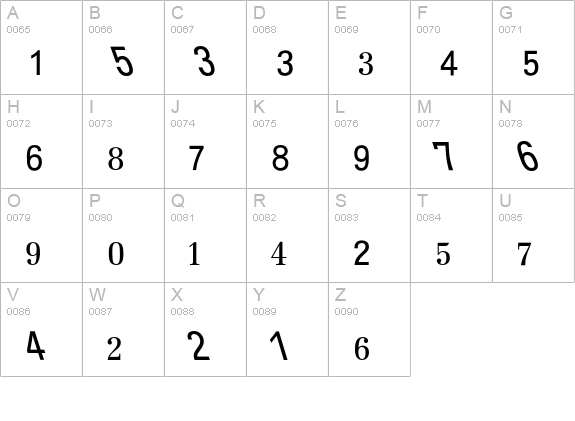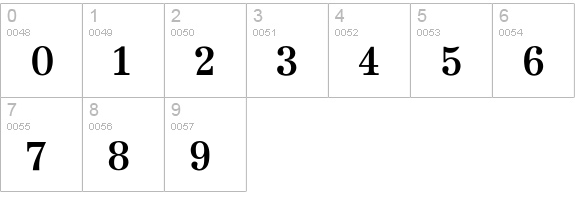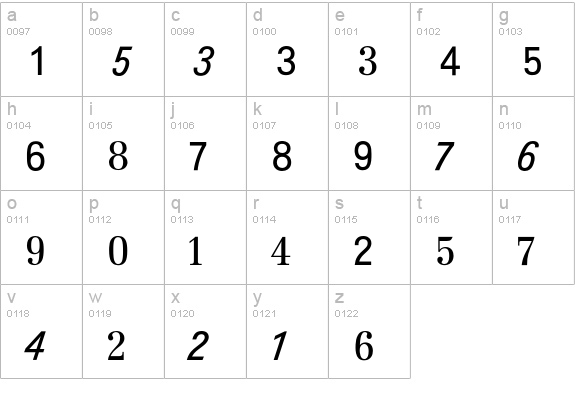
The Topographische Zahlentafel font is a stunning display typeface that combines elegance and modernity. Its clean lines and sharp edges give it a sophisticated and professional look, making it the perfect choice for a wide range of design projects. This font is not only visually appealing, but it also offers a high level of functionality. Its well-designed characters ensure legibility, making it suitable for both small and large sizes. Whether you are designing a logo, creating a poster, or crafting a brochure, the Topographische Zahlentafel font will help you make a strong visual impact. One of the most remarkable aspects of this font is that it is free to download. FontsMarket.com offers this font as a freely available resource, allowing designers and creatives to access this exceptional typeface without any cost. This makes it an excellent choice for those on a budget or those who value the importance of freely available resources. So, if you are looking for a versatile and visually captivating font that is freely available, the Topographische Zahlentafel font is the perfect choice for you. Download it today from FontsMarket.com and start creating stunning designs that will leave a lasting impression.